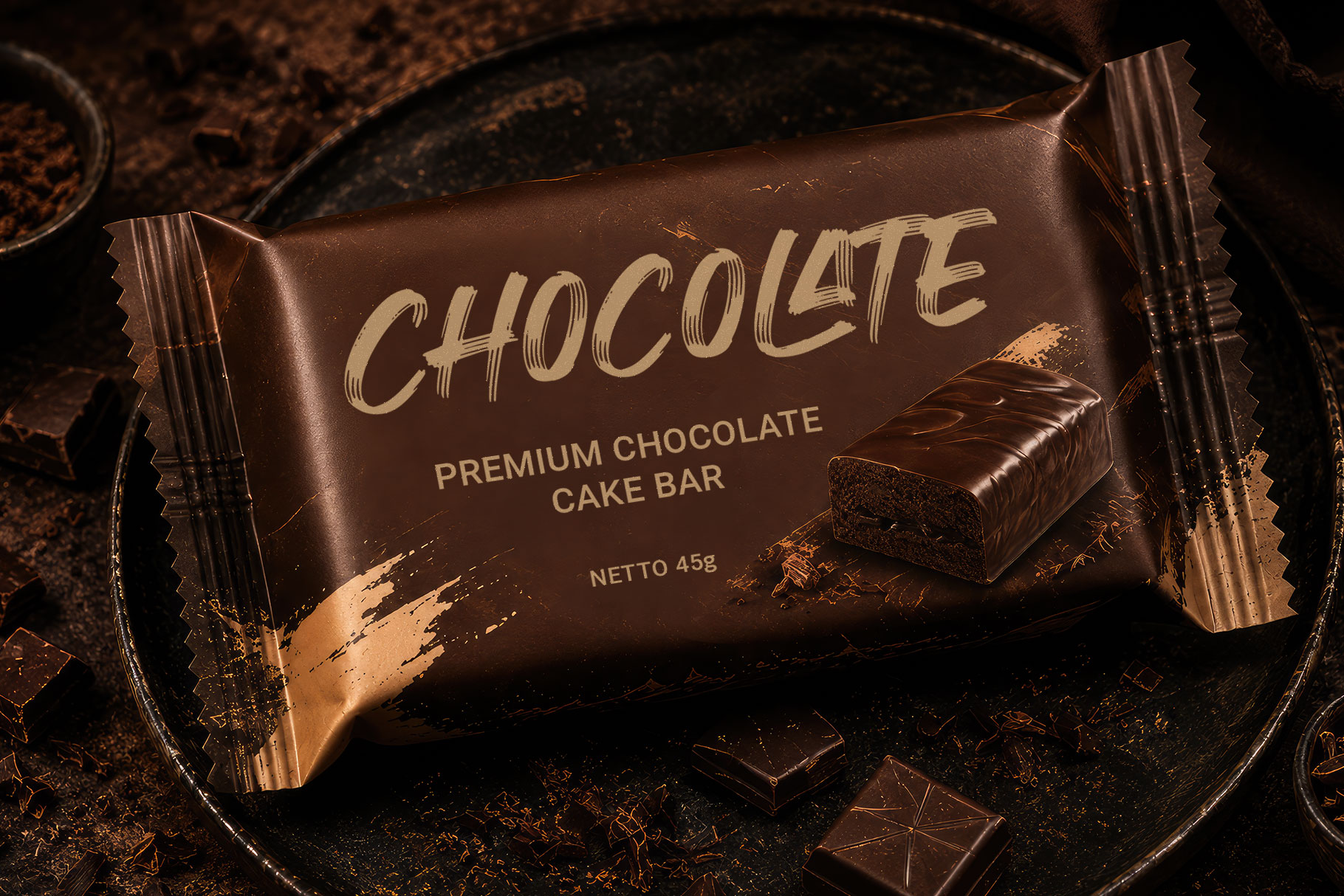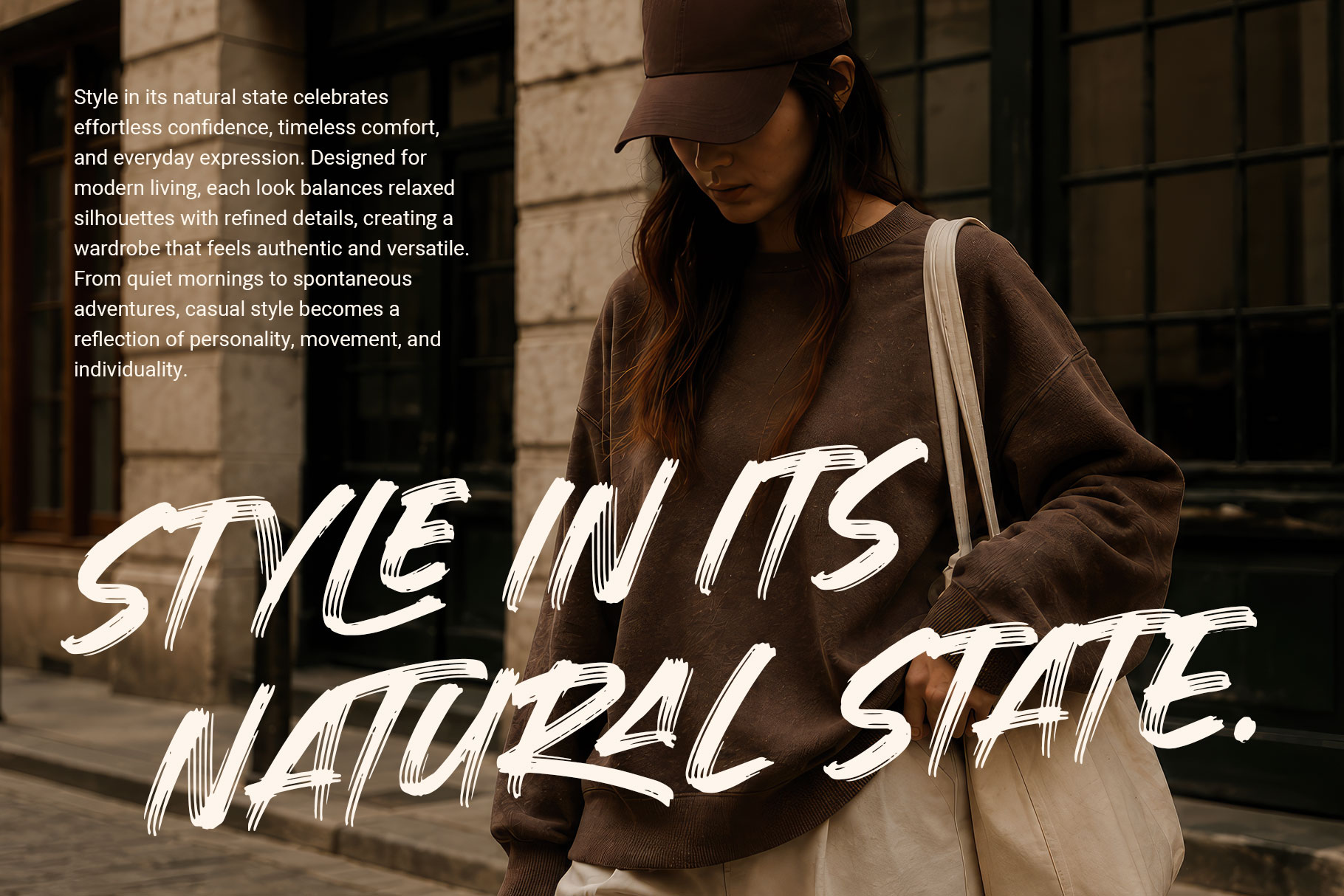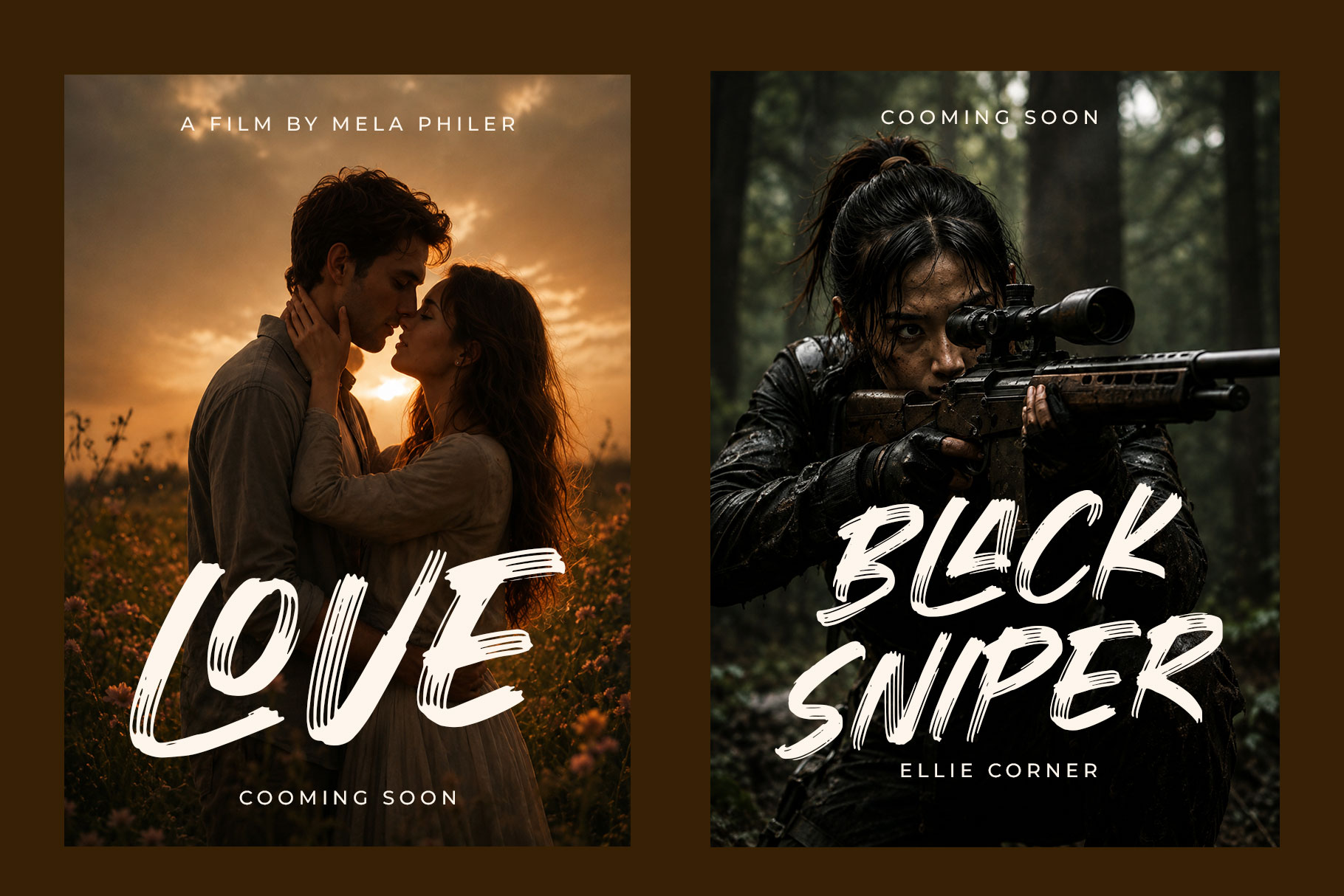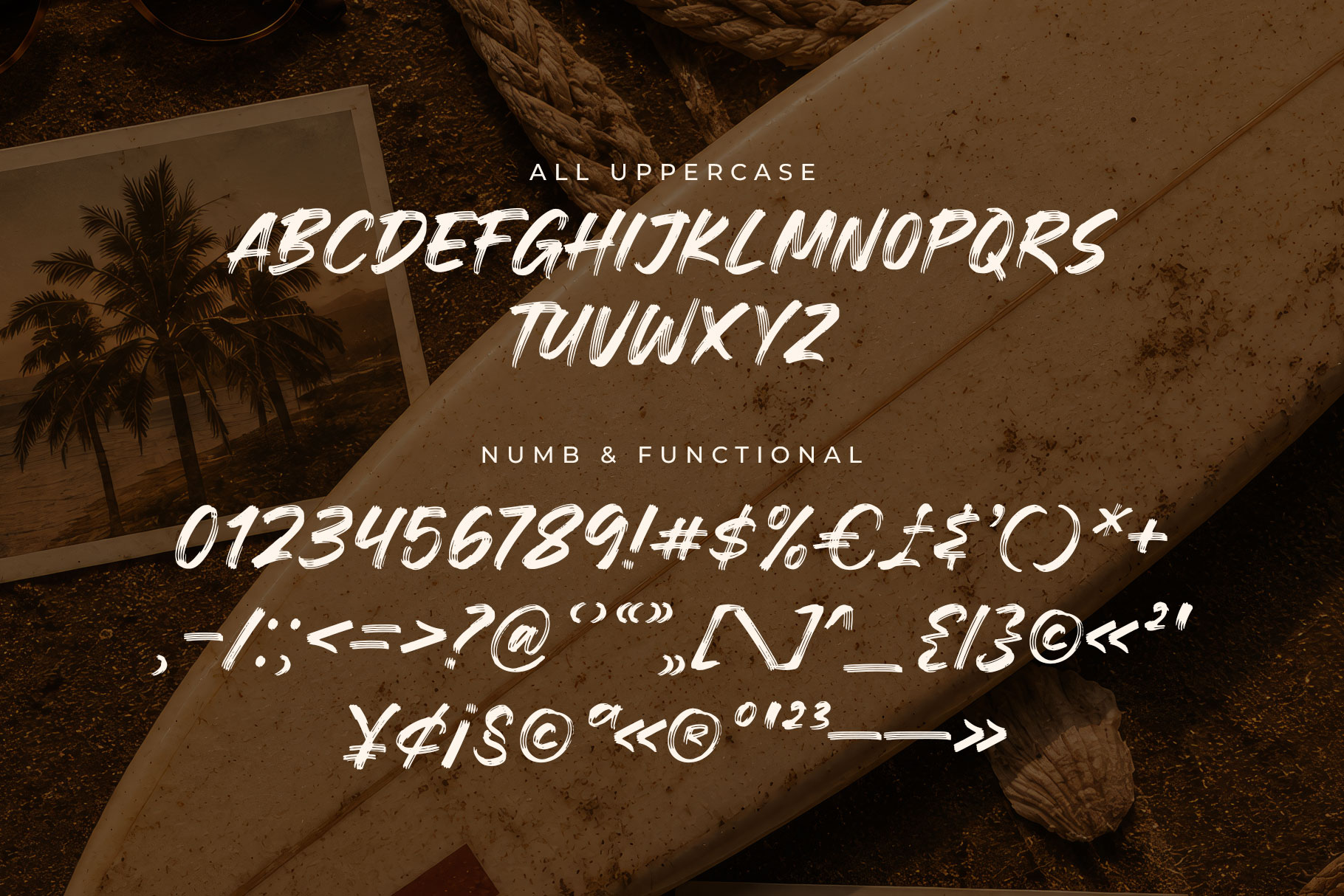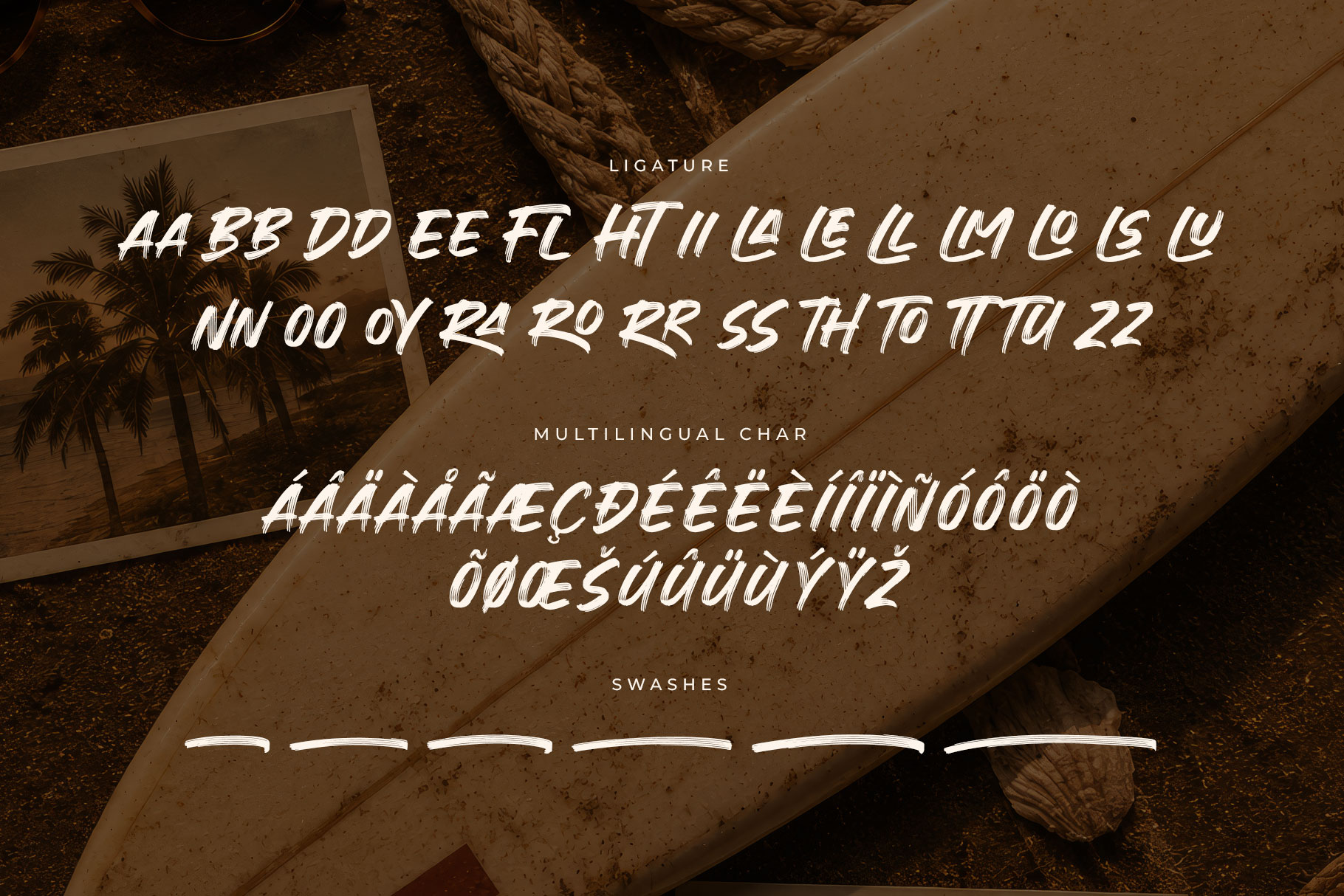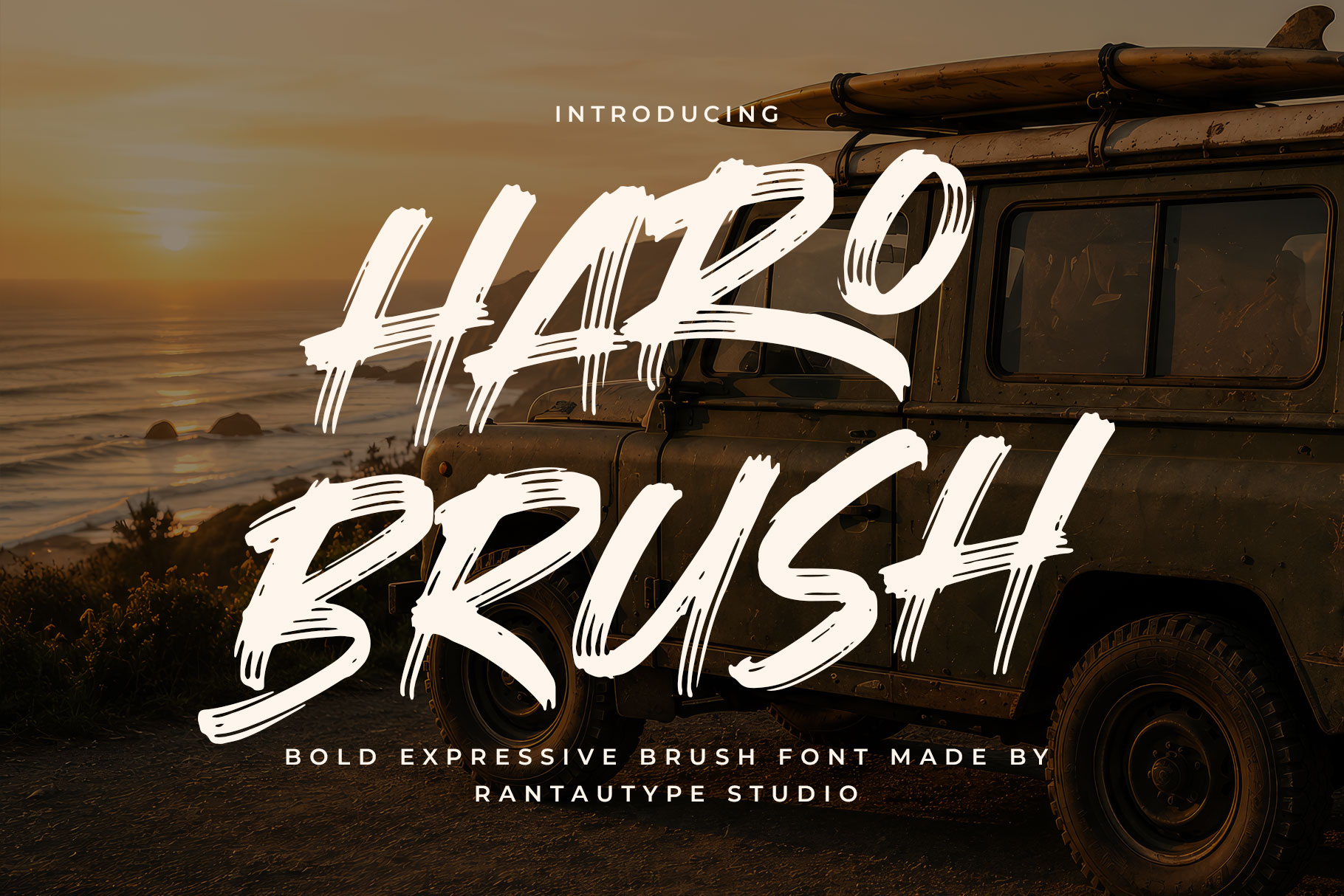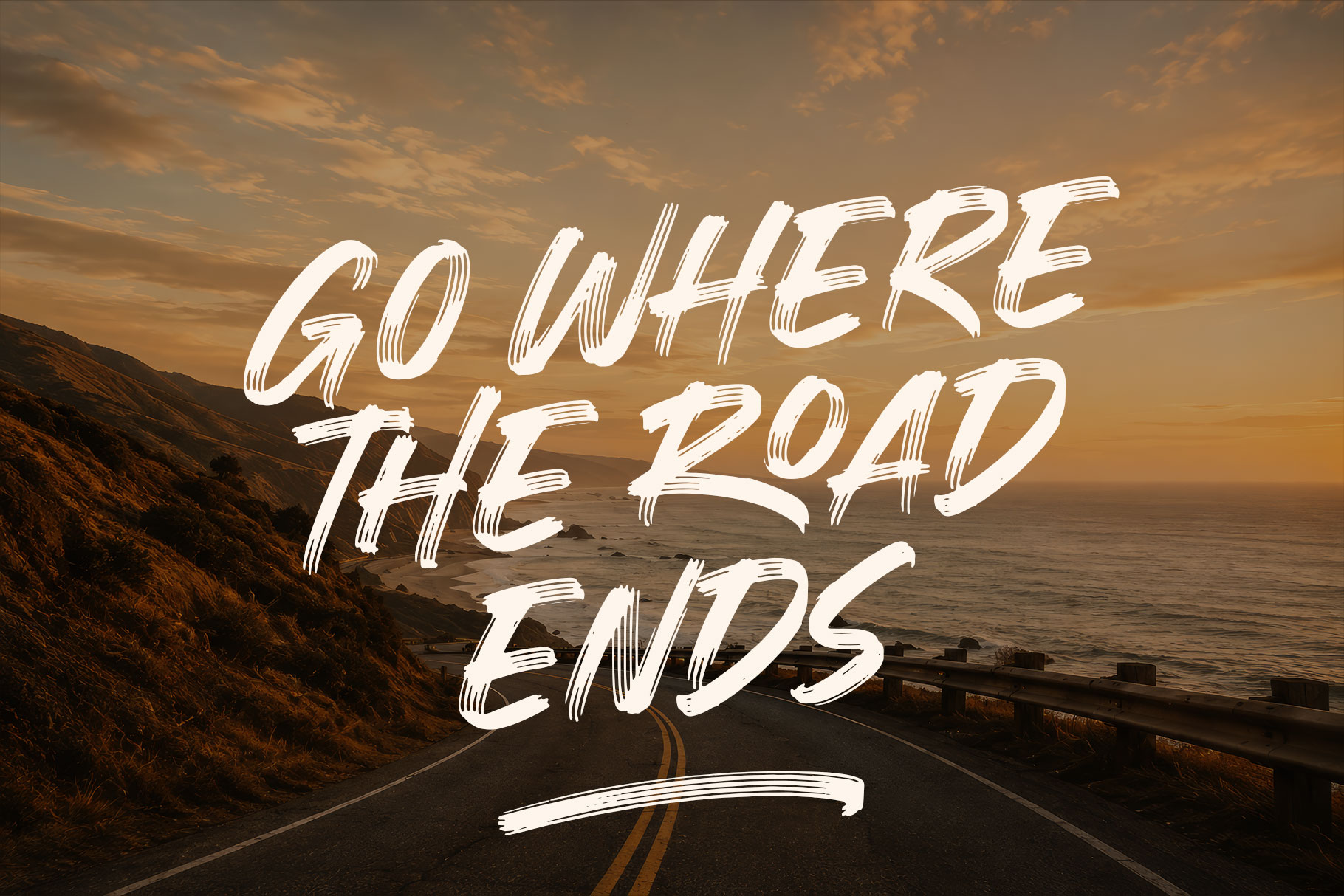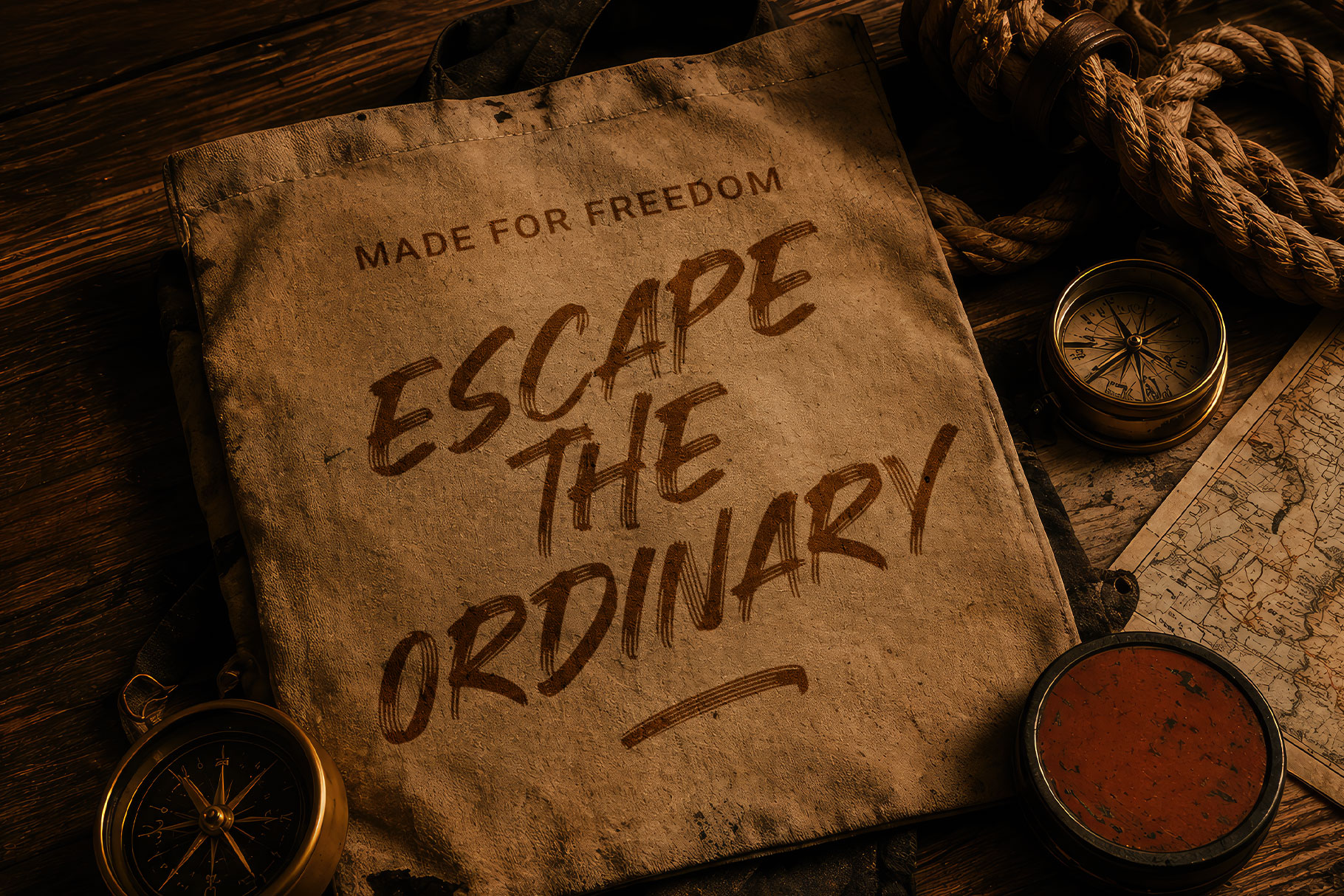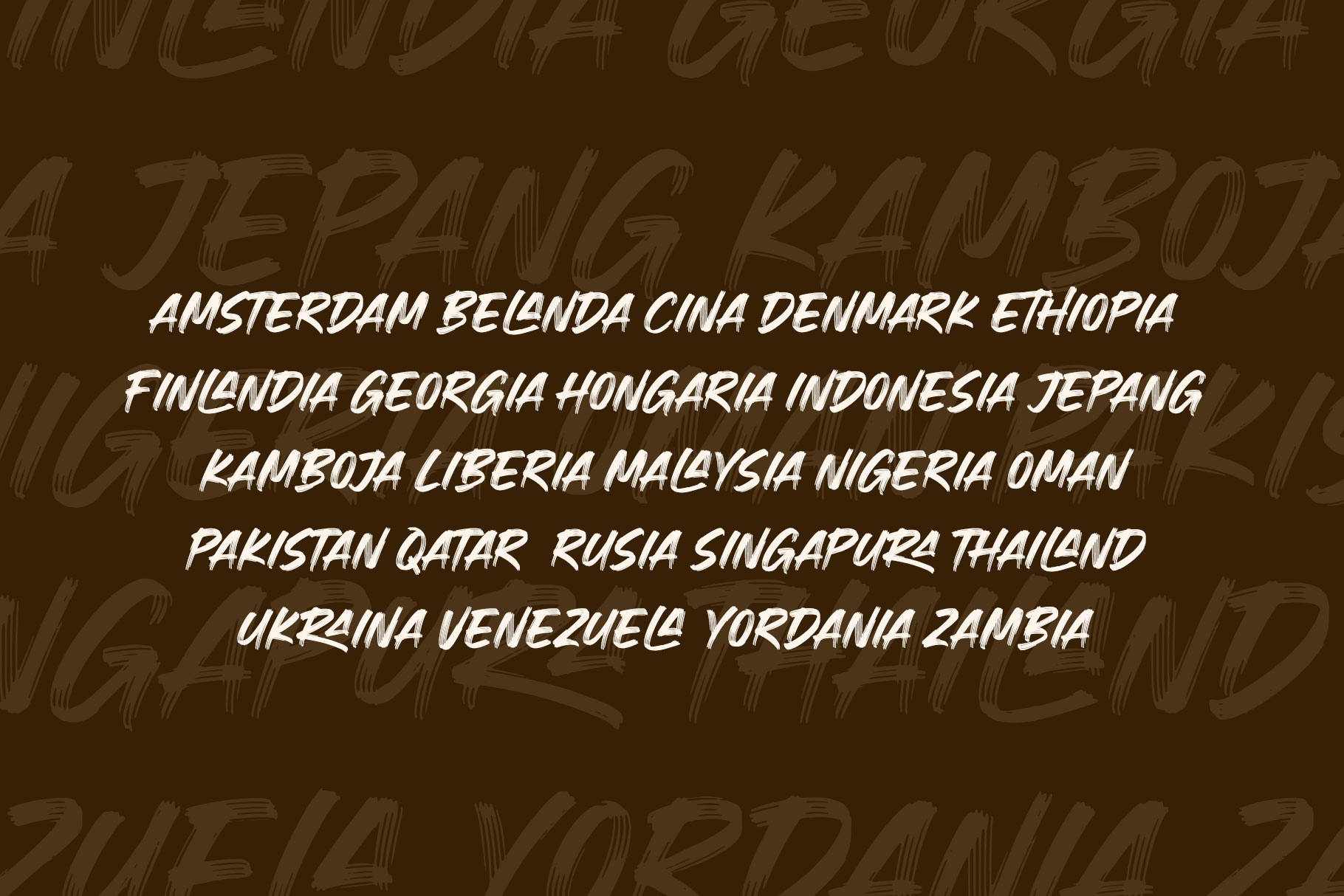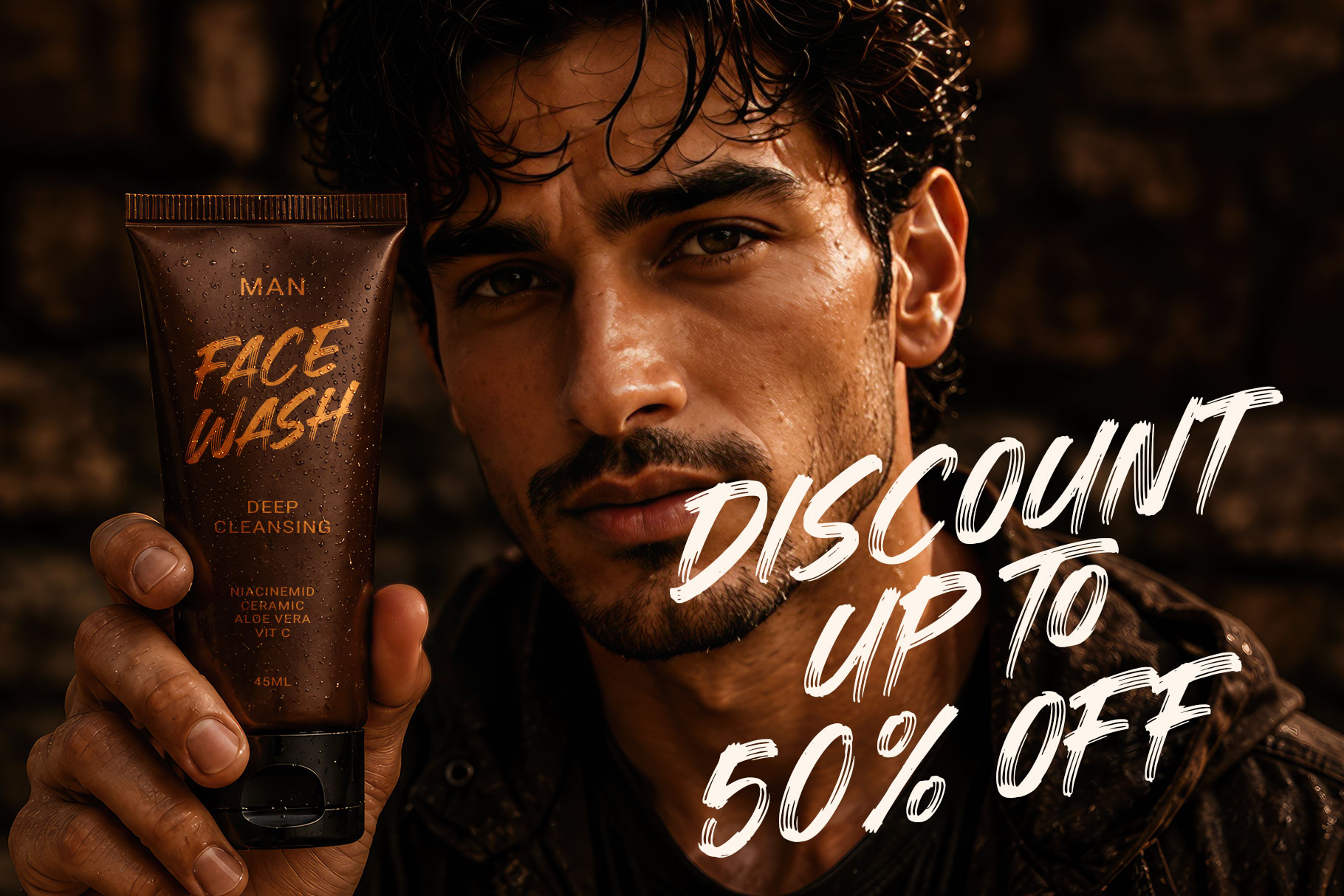
Haro Brush is bold expressive brush font delivers a raw, energetic personality through powerful hand-painted strokes, irregular contours, and authentic brush texture. Haro Brush is a perfectly choice for any creative endeavor, creating, modern, lifestyle design such as logotype, title, cover, branding, invitations, display and magazine, social media posts, advertisements, printed quotes, product packaging, corporate brand, product designs, labels, photography, watermarks, special events and any other project with modern touch.
Haro Brush Bold Expressive Brush Font